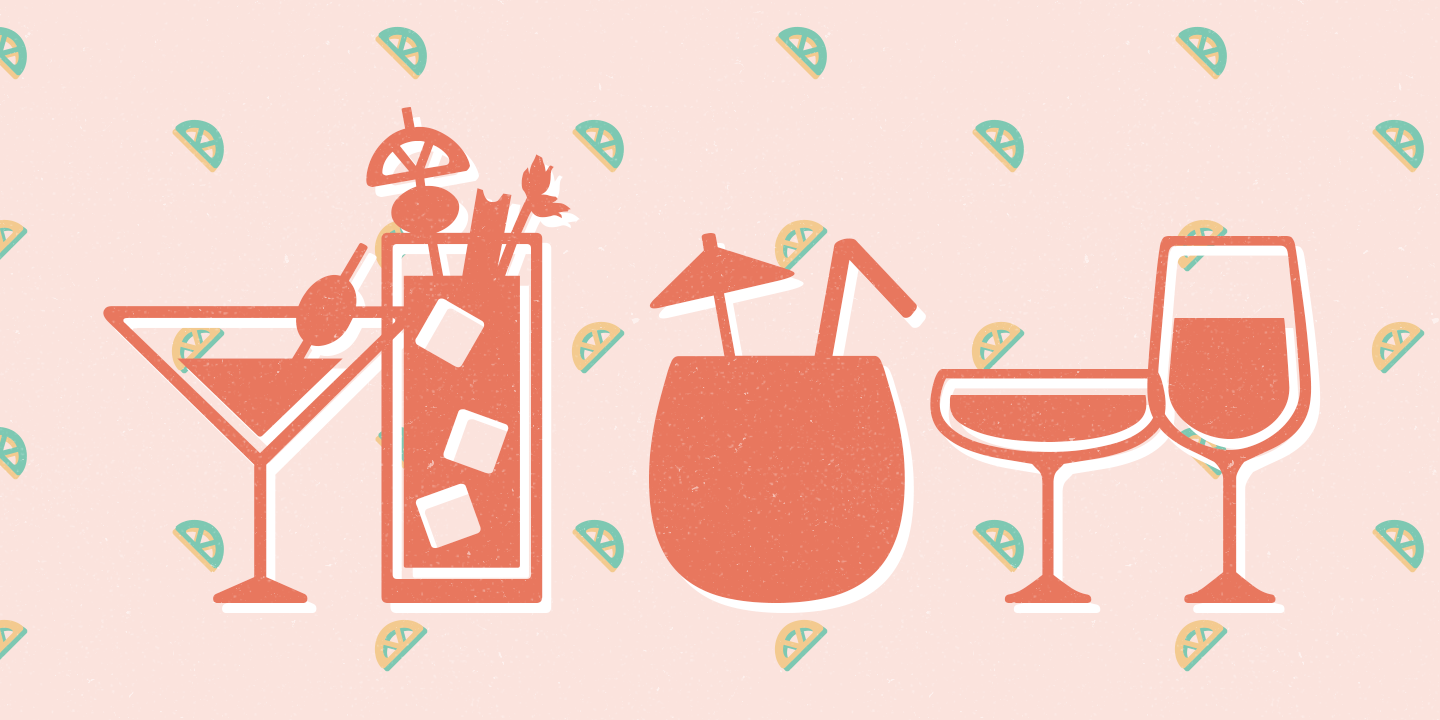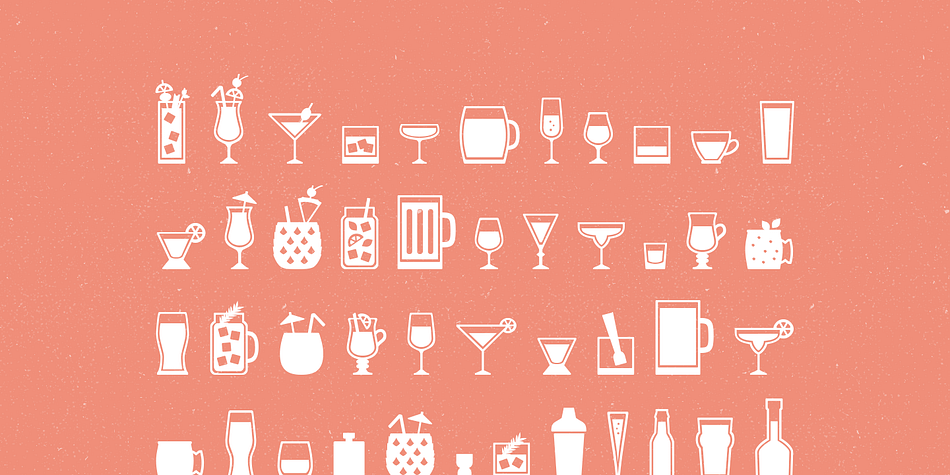
Designed by Lauren Ashpole, Bar Book is a dingbat font published by Lauren Ashpole.
The lowercase and uppercase letters offer an assortment of glassware, bottles, and drinks while the numbers include accessories and garnishes that can be mixed and matched to create new combinations.
Foundry | Lauren Ashpole |
Designer | Lauren Ashpole |